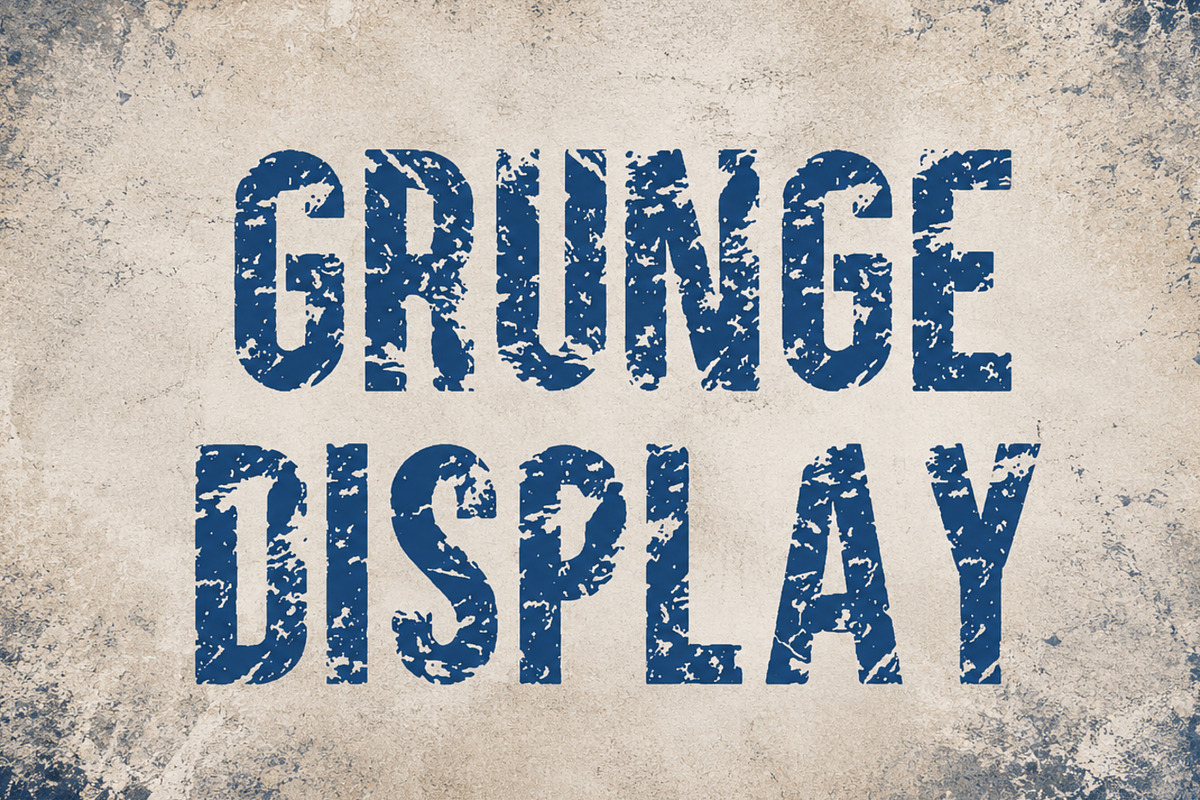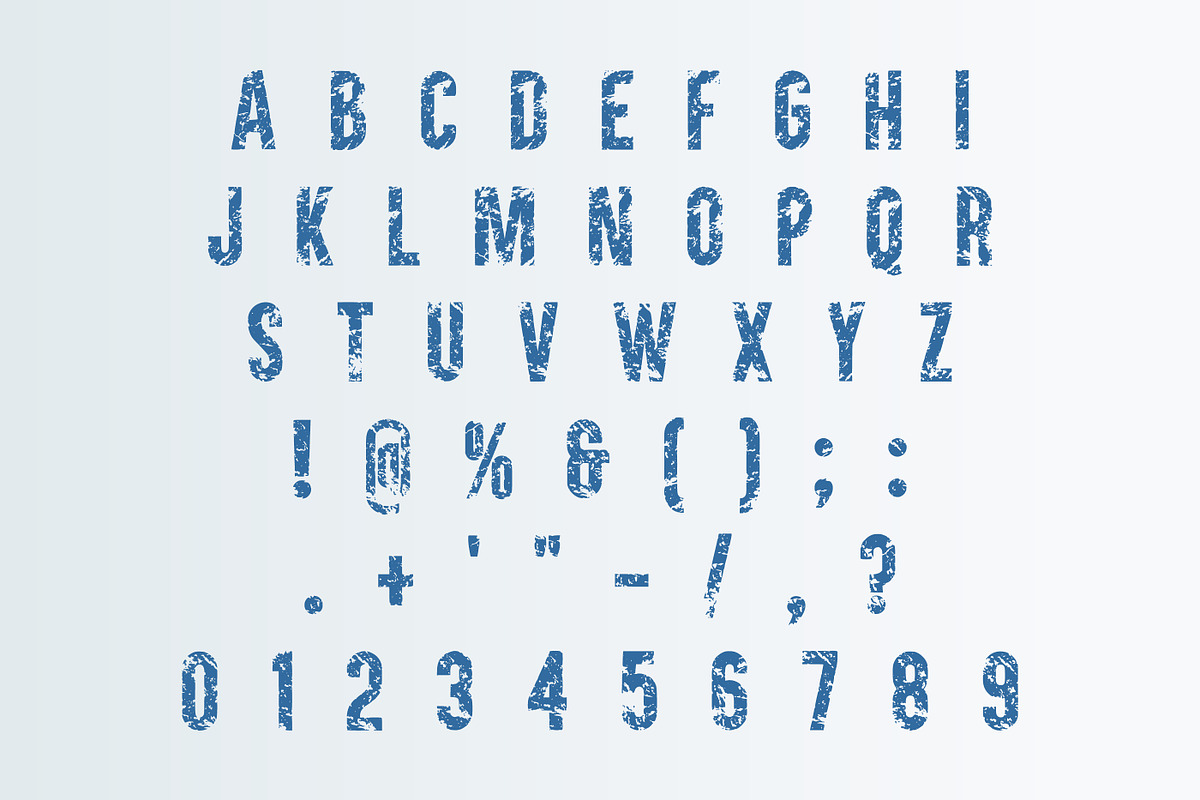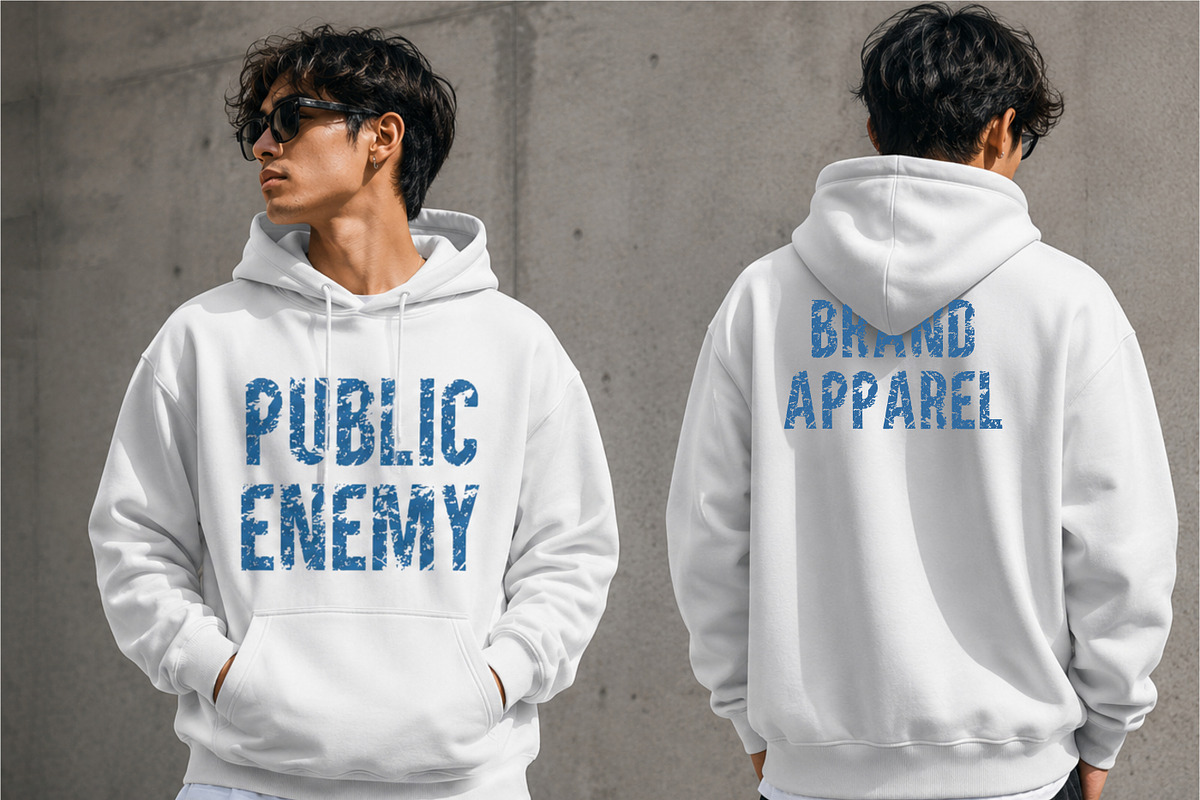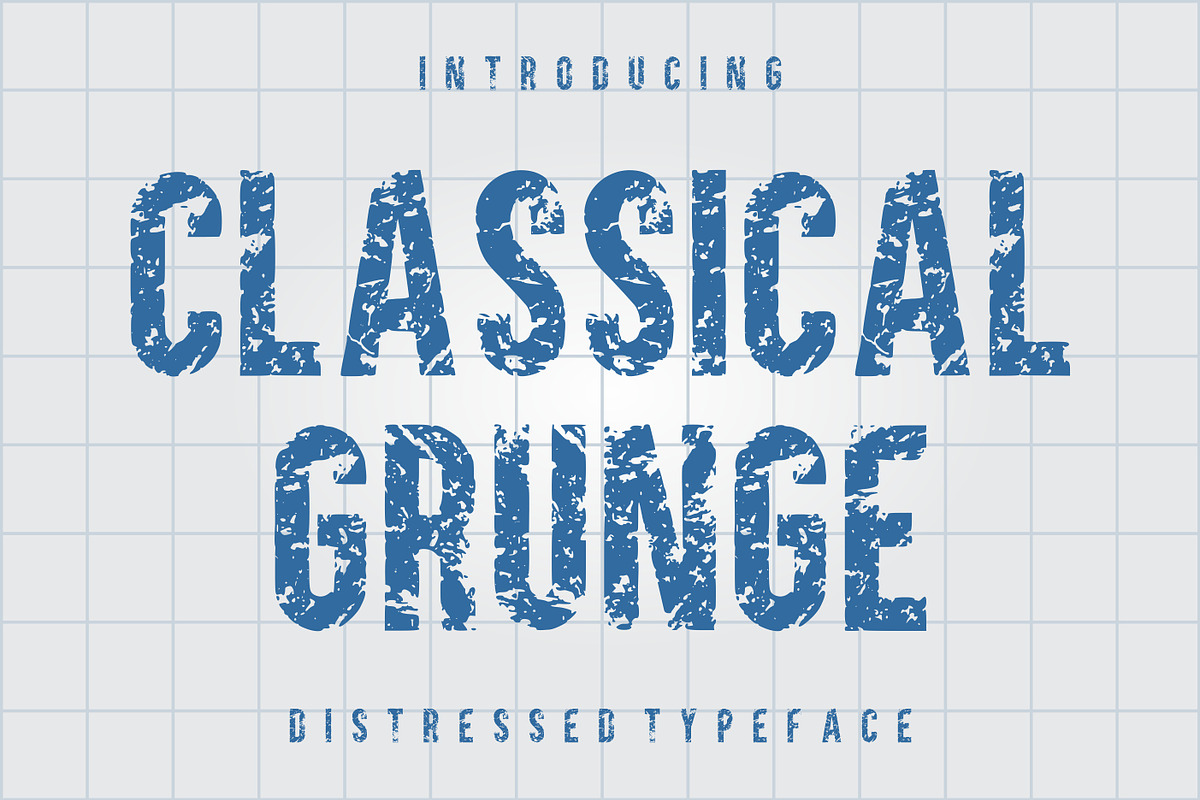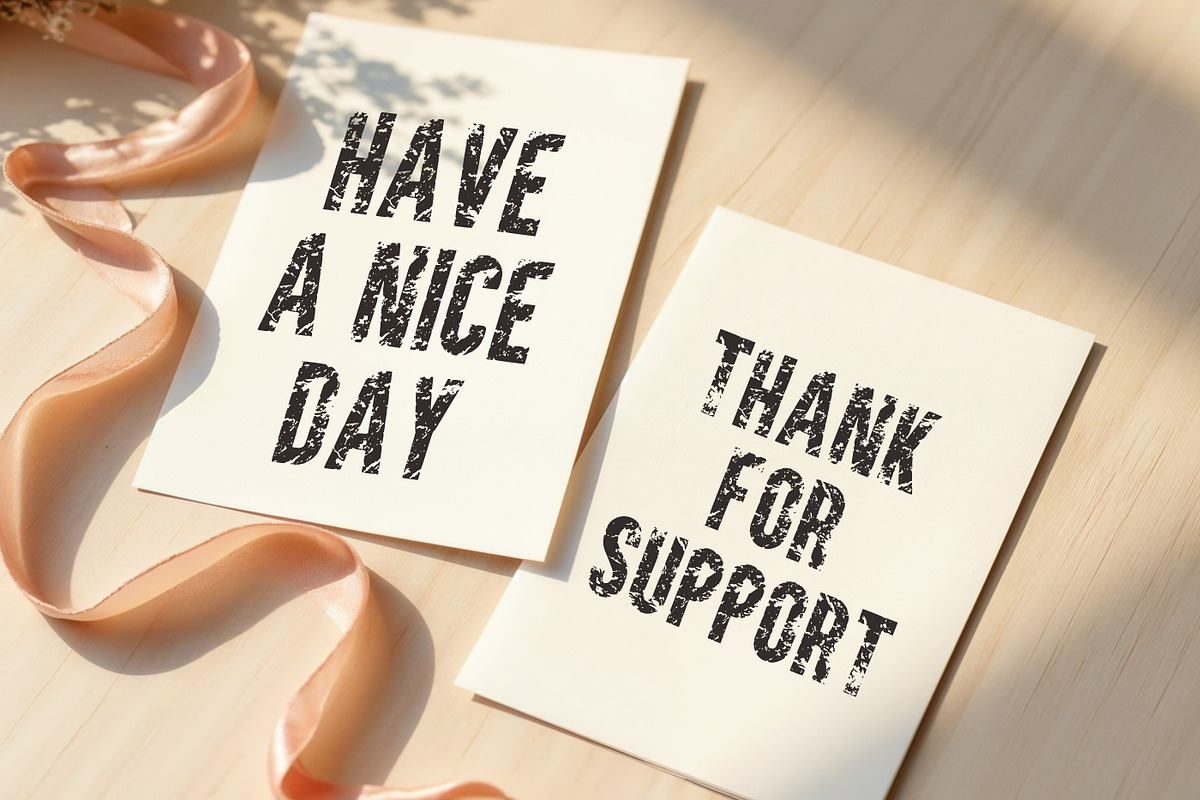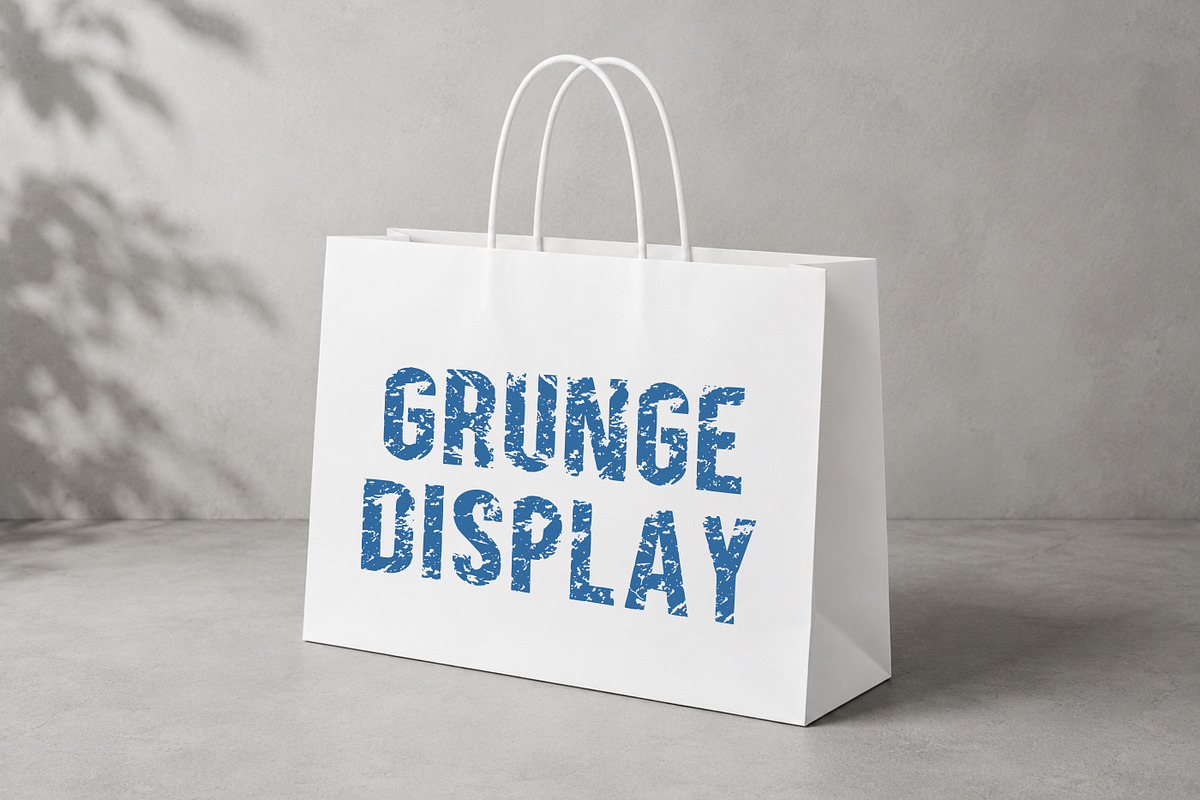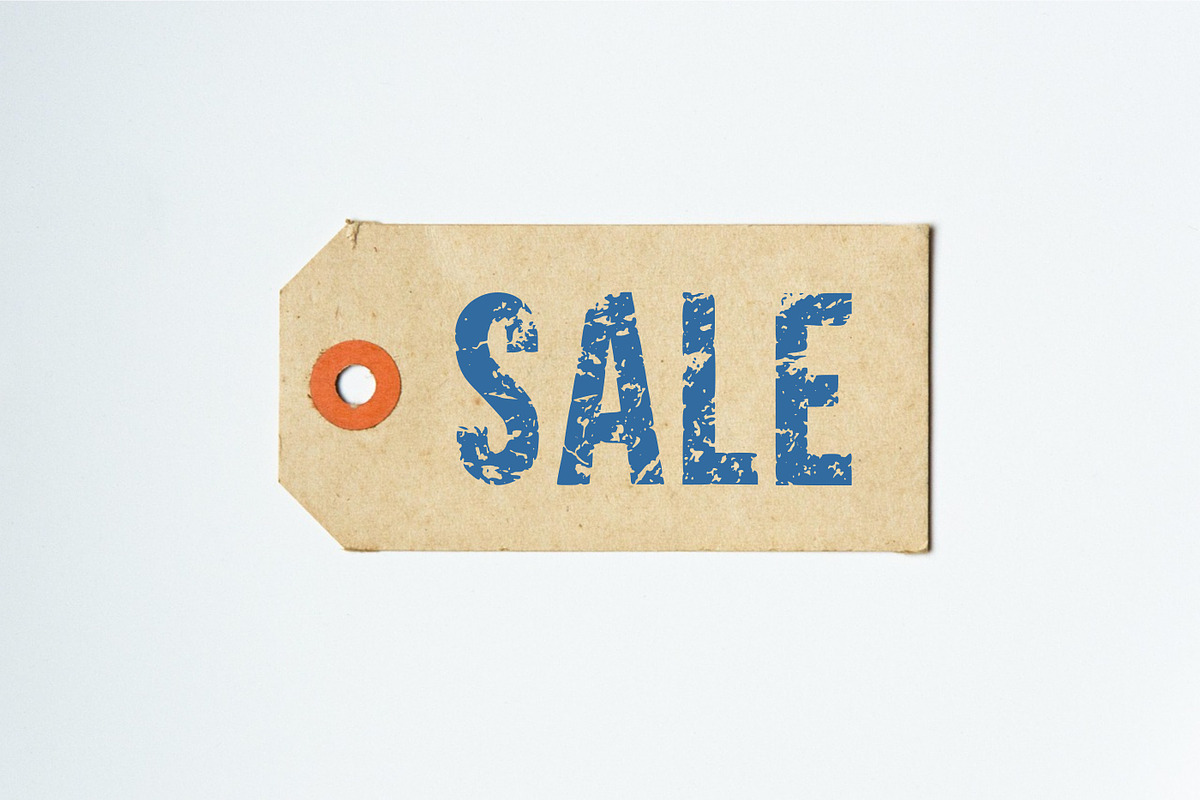
Classical Grunge
Introducing Classical Grunge, a bold distressed display font designed to bring vintage authenticity and rugged character to your typography. Crafted with detailed grunge textures and strong letterforms, this font is ideal for projects that require a worn, weathered, and impactful appearance.
Perfect for logos, branding, posters, apparel designs, packaging, labels, signage, social media graphics, album artwork, and merchandise, Classical Grunge helps create eye-catching designs with a timeless vintage feel.
Vintage Branding
Posters & Flyers
Apparel & Merchandise
Labels & Badges
Album Covers
Advertising Materials
Rustic & Industrial Themes
Uppercase Characters
Distressed Grunge Texture
High Readability
Vintage & Retro Style